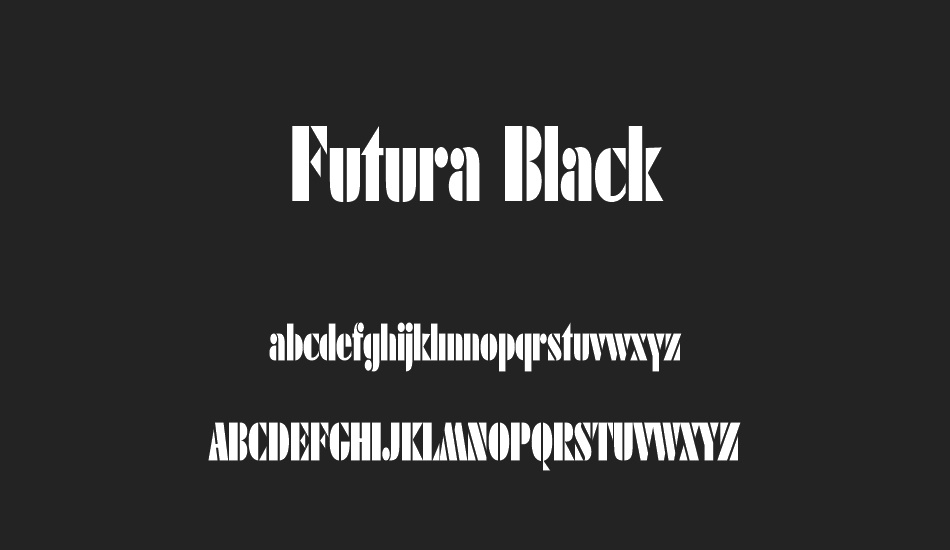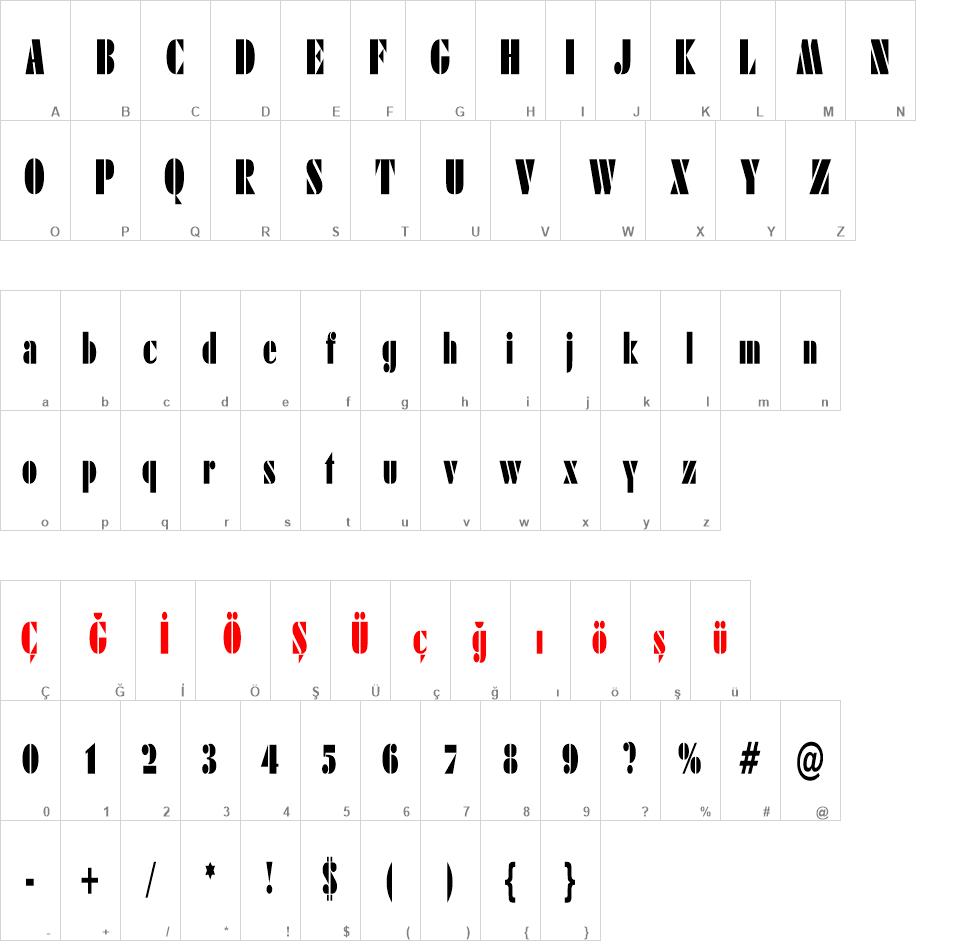
Font Futura Black
Font Futura Black - Futura black font family designed by unknown designer has a total of 1 different styles. This font features bold, geometric letterforms. Every font is free to download! Looking for futura black fonts? A bold, geometric font with strong, modern letterforms. Futura black contains 1 styles. Click to find the best 16 free fonts in the futura black style. You can download the futura black font to your. Futura black font family was designed by paul renner, josef albers and published by bitstream.
Futura black contains 1 styles. Click to find the best 16 free fonts in the futura black style. Futura black font family designed by unknown designer has a total of 1 different styles. Looking for futura black fonts? A bold, geometric font with strong, modern letterforms. This font features bold, geometric letterforms. Futura black font family was designed by paul renner, josef albers and published by bitstream. You can download the futura black font to your. Every font is free to download!
Click to find the best 16 free fonts in the futura black style. Futura black contains 1 styles. This font features bold, geometric letterforms. Looking for futura black fonts? Futura black font family was designed by paul renner, josef albers and published by bitstream. Futura black font family designed by unknown designer has a total of 1 different styles. You can download the futura black font to your. Every font is free to download! A bold, geometric font with strong, modern letterforms.
Futura black font family was designed by paul renner, josef albers and published by bitstream. A bold, geometric font with strong, modern letterforms. Futura black contains 1 styles. Futura black font family designed by unknown designer has a total of 1 different styles. Looking for futura black fonts?
A bold, geometric font with strong, modern letterforms. You can download the futura black font to your. Futura black font family designed by unknown designer has a total of 1 different styles. Click to find the best 16 free fonts in the futura black style. Futura black font family was designed by paul renner, josef albers and published by bitstream.
A bold, geometric font with strong, modern letterforms. You can download the futura black font to your. Looking for futura black fonts? Futura black font family was designed by paul renner, josef albers and published by bitstream. Click to find the best 16 free fonts in the futura black style.
A bold, geometric font with strong, modern letterforms. This font features bold, geometric letterforms. Futura black font family designed by unknown designer has a total of 1 different styles. Futura black font family was designed by paul renner, josef albers and published by bitstream. You can download the futura black font to your.
Futura black font family was designed by paul renner, josef albers and published by bitstream. Click to find the best 16 free fonts in the futura black style. Futura black font family designed by unknown designer has a total of 1 different styles. Looking for futura black fonts? Futura black contains 1 styles.
You can download the futura black font to your. Click to find the best 16 free fonts in the futura black style. Futura black font family was designed by paul renner, josef albers and published by bitstream. Every font is free to download! This font features bold, geometric letterforms.
Every font is free to download! This font features bold, geometric letterforms. You can download the futura black font to your. Futura black contains 1 styles. Futura black font family was designed by paul renner, josef albers and published by bitstream.
Futura black font family designed by unknown designer has a total of 1 different styles. Looking for futura black fonts? Every font is free to download! Futura black contains 1 styles. Click to find the best 16 free fonts in the futura black style.
You Can Download The Futura Black Font To Your.
Looking for futura black fonts? Futura black contains 1 styles. A bold, geometric font with strong, modern letterforms. This font features bold, geometric letterforms.
Futura Black Font Family Was Designed By Paul Renner, Josef Albers And Published By Bitstream.